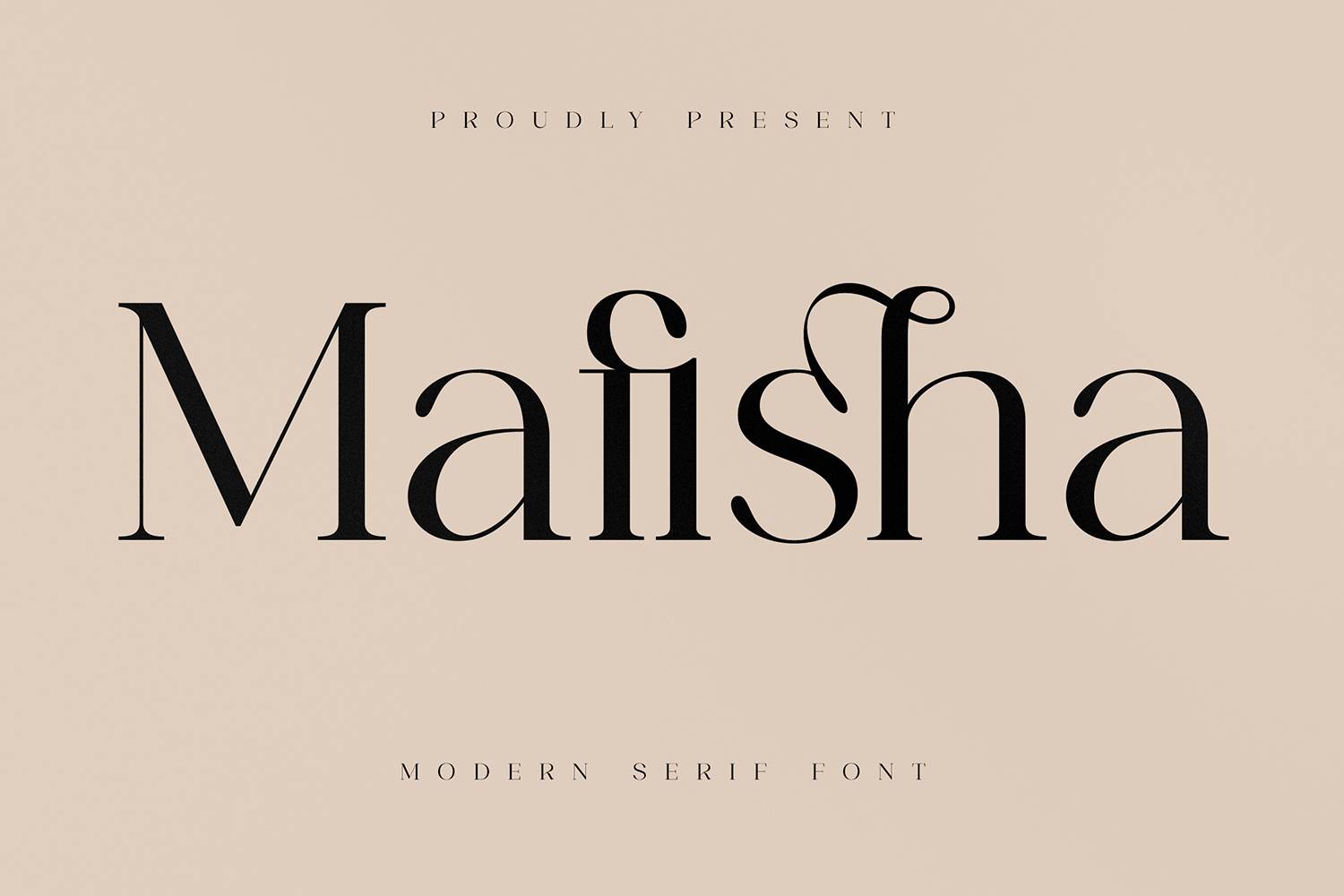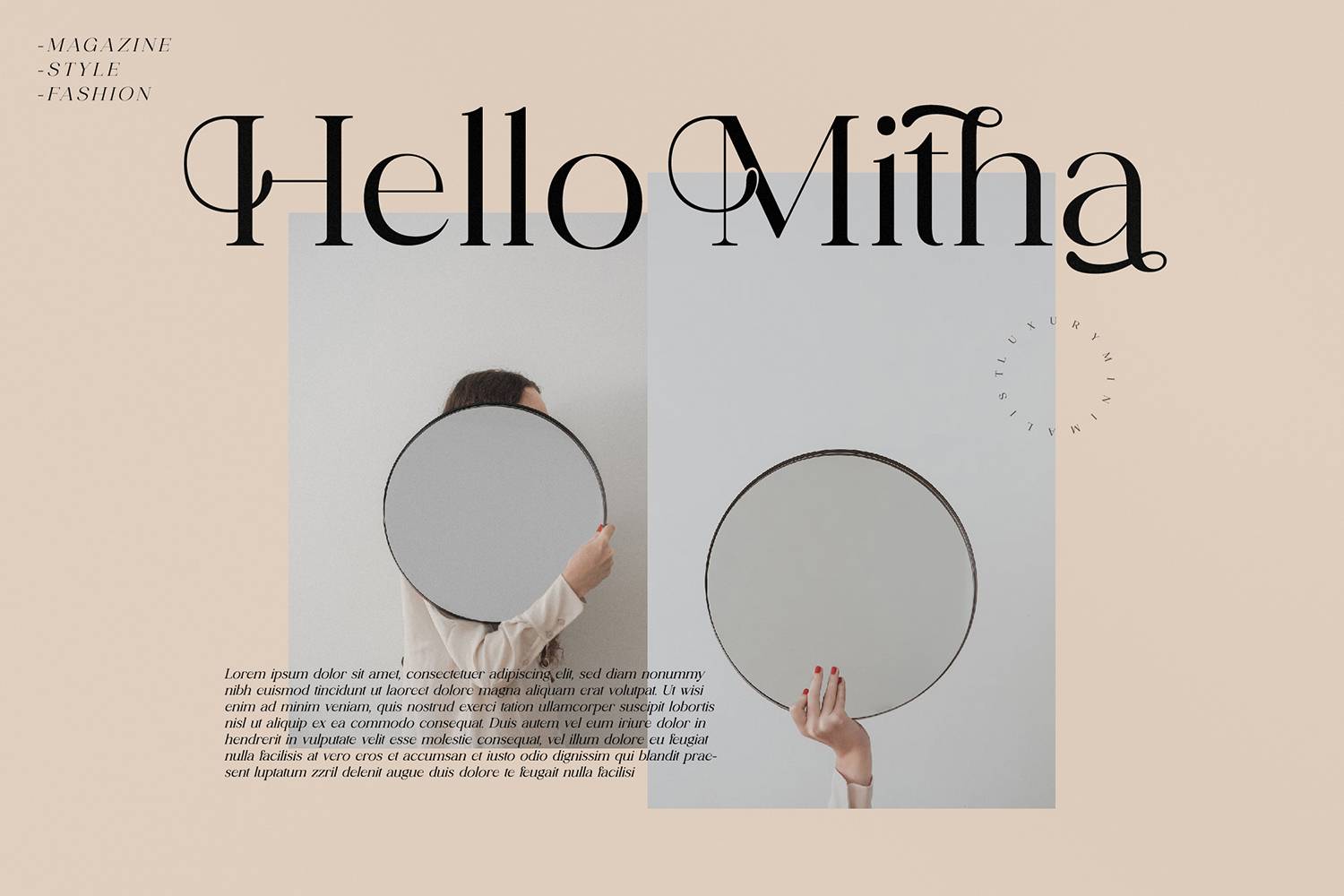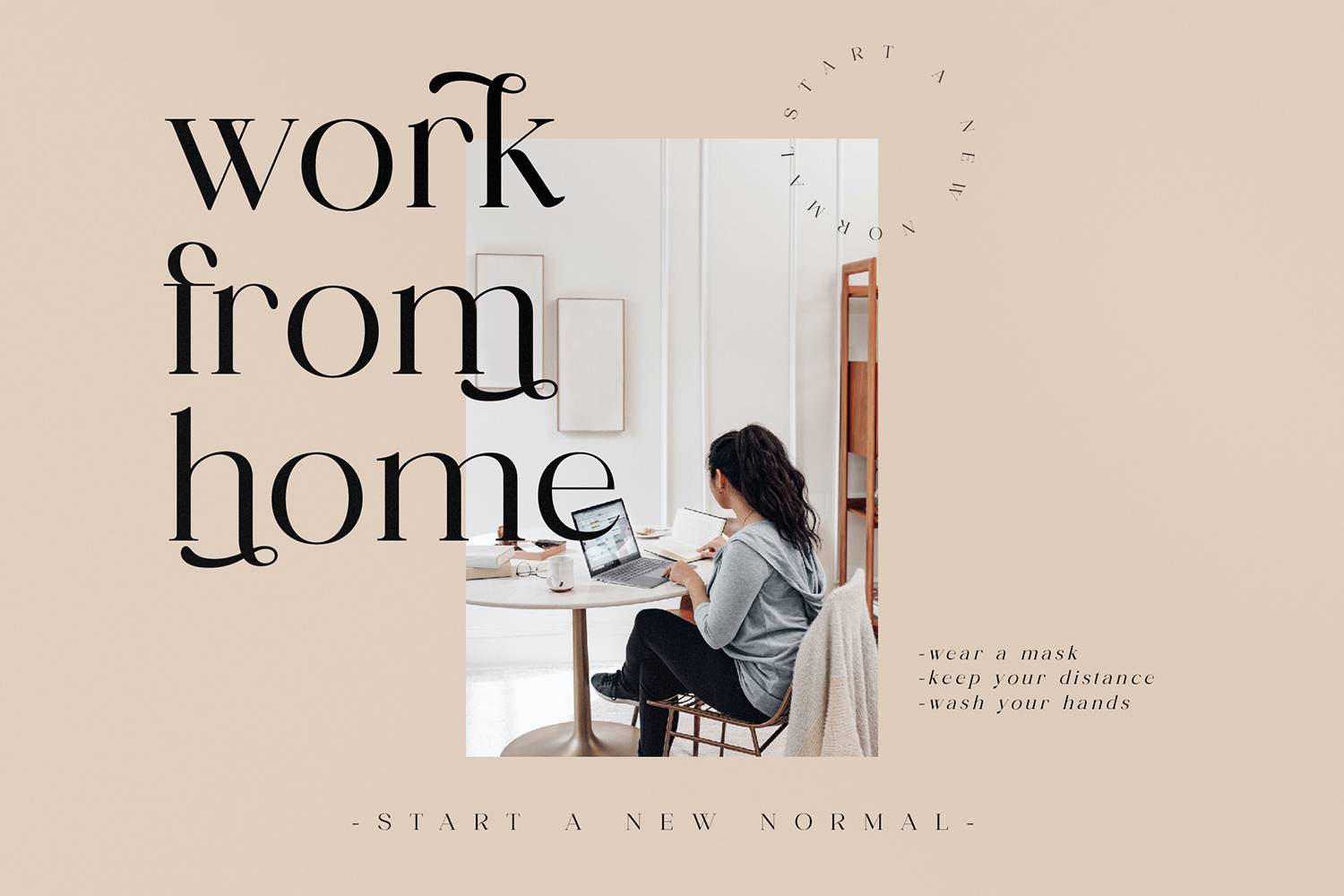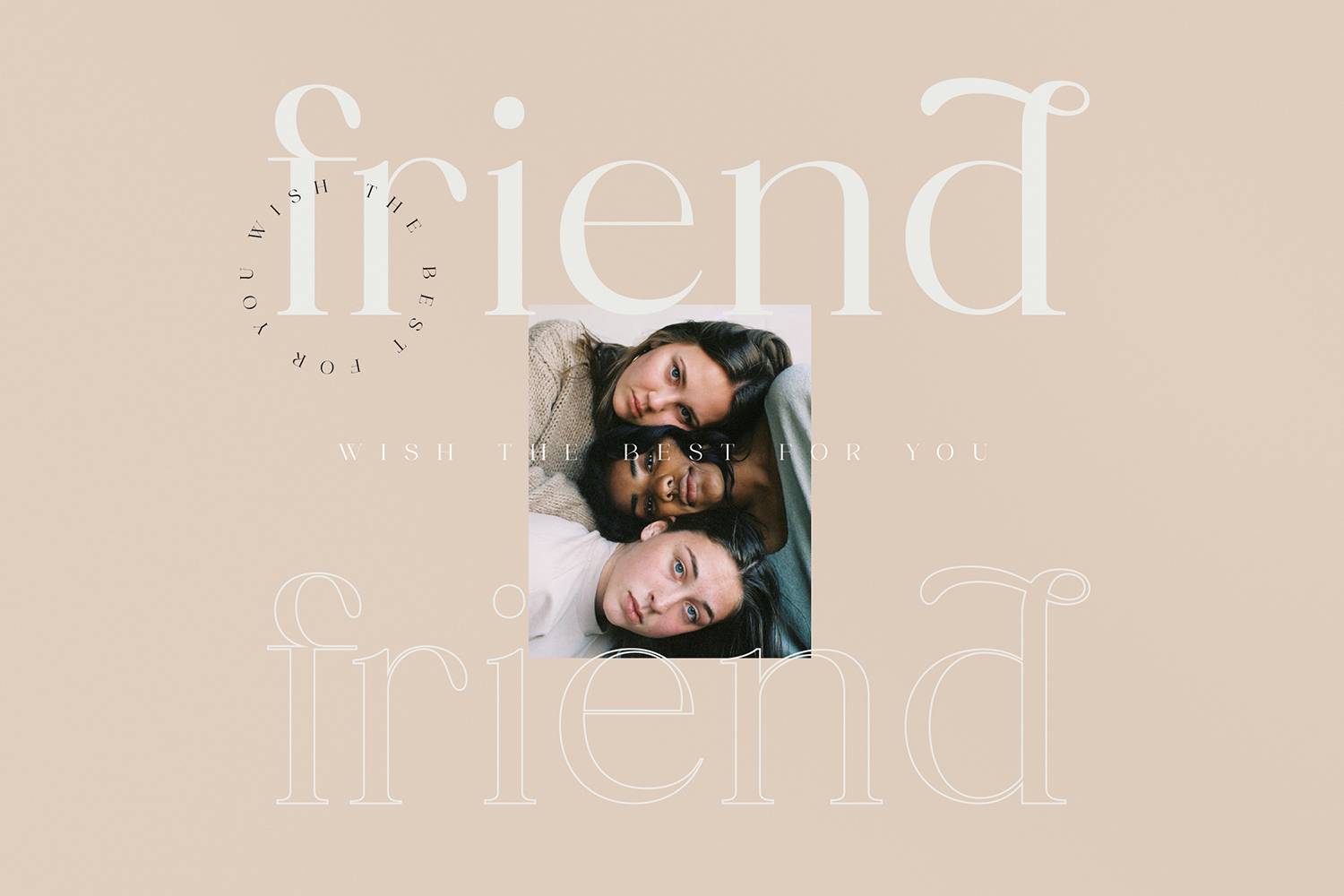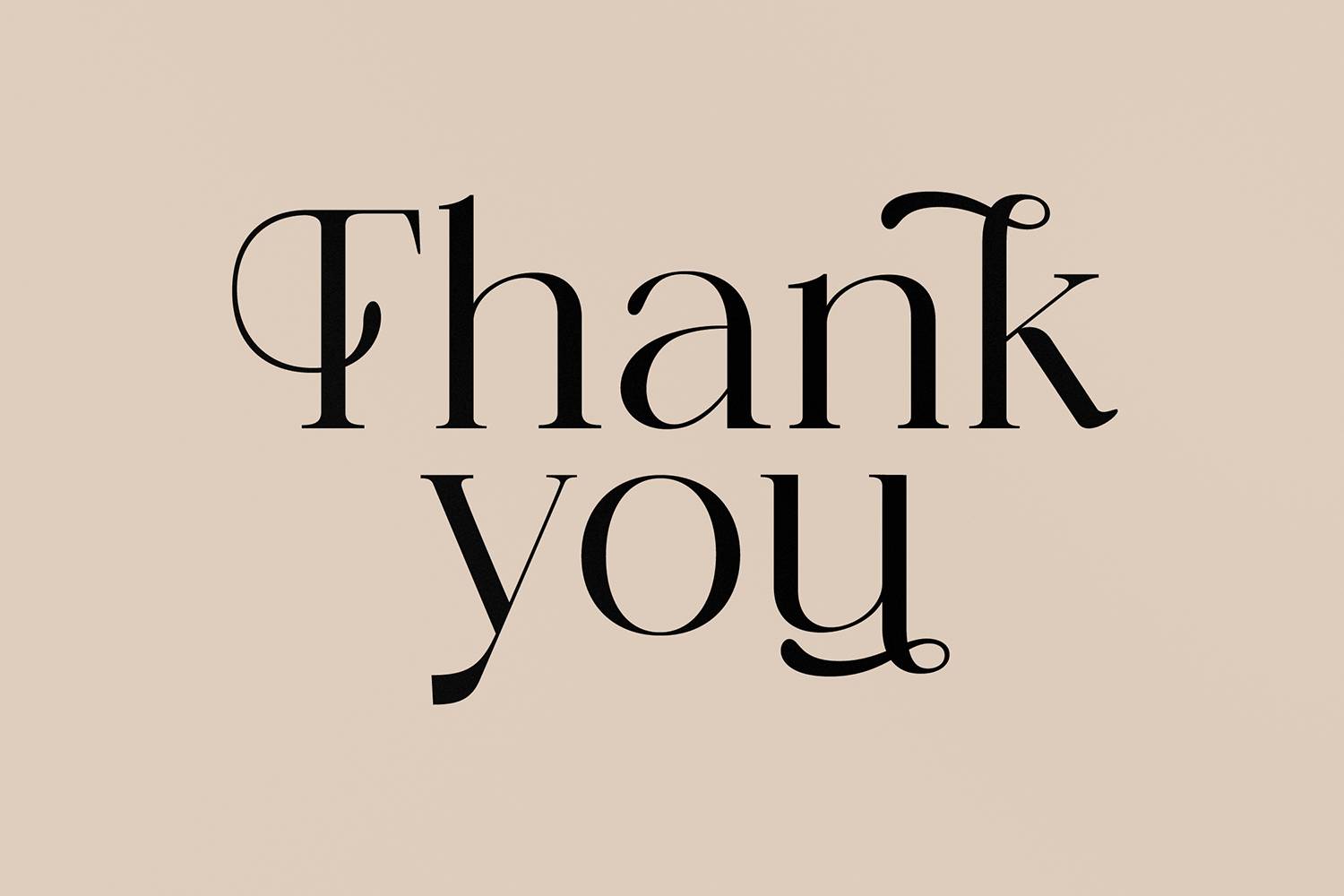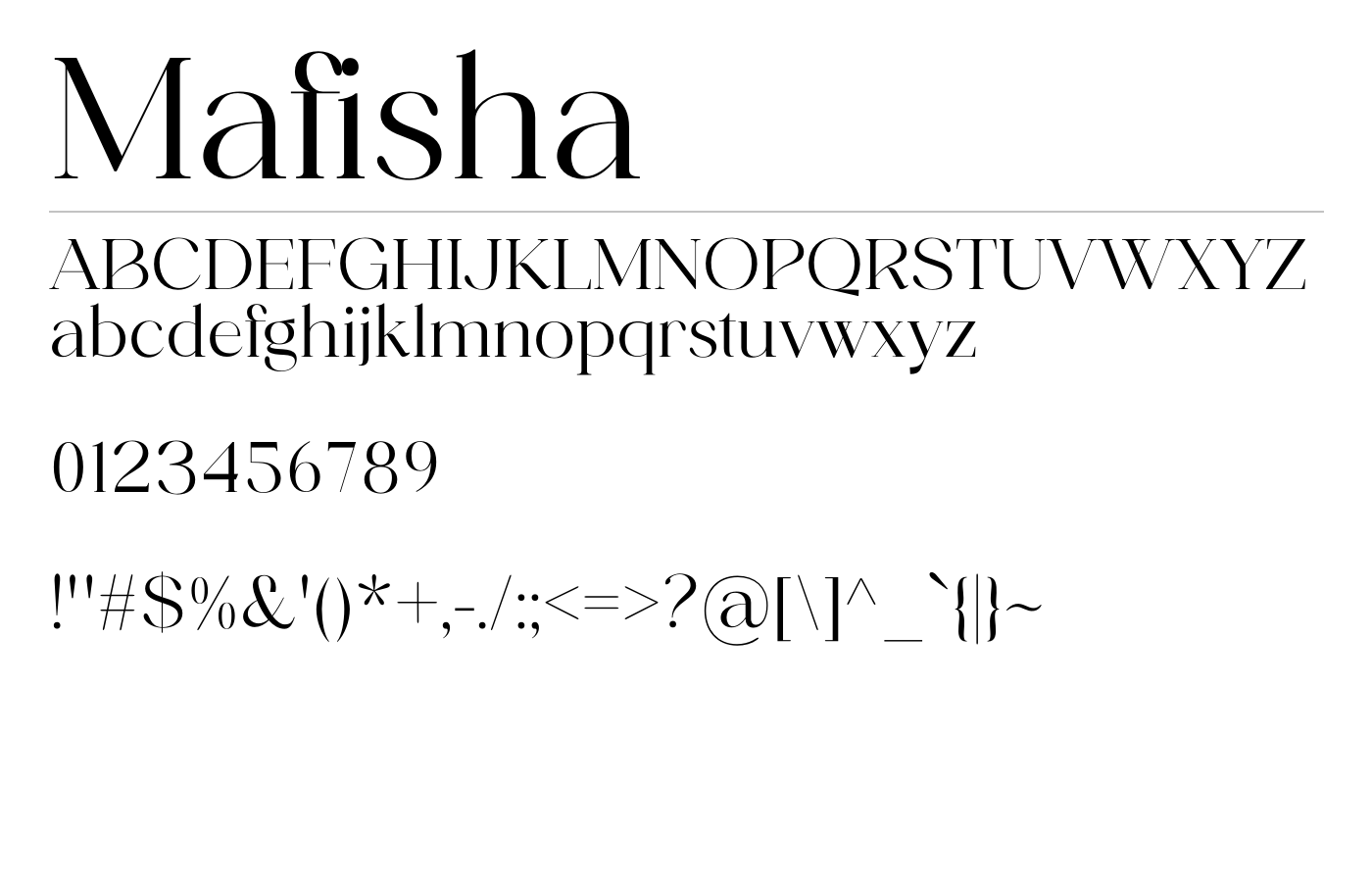
Mafisha is an elegant serif font with a modern Didone style characterized by high contrast between thick and thin strokes and delicate, fine serifs. Its refined letterforms, including single-story ‘a’ and distinctive tapered terminals, create a sophisticated and luxurious feel, making it ideal for fashion branding, editorial headlines, and upscale packaging. This font combines a contemporary sensibility with classic elegance, perfect for designs that aim to communicate grace and style.
Mafisha Font
About Mafisha Font
| Font family | Mafisha Font |